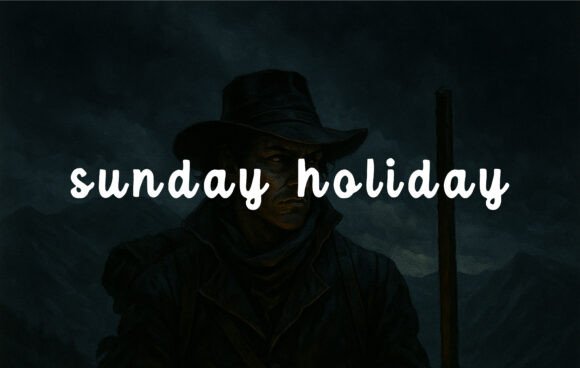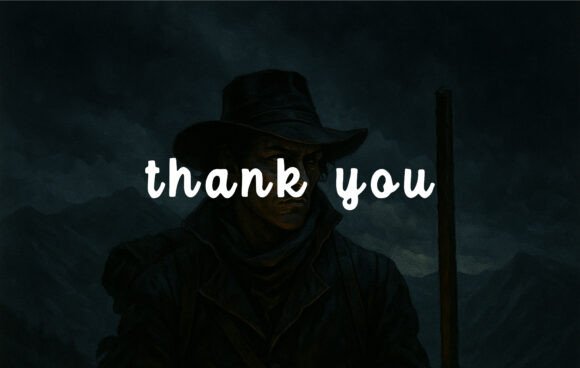
The Browning Font: A Comprehensive Guide to its Unique Characteristics and Design Applications
The Browning font has gained popularity among designers and crafters for its distinctive, handcrafted aesthetic. This typeface gets its unique character from its fluid, connected strokes that mimic natural handwriting. In this article, we’ll explore the key features of the Browning font, its design applications, and why it’s an excellent choice for projects that aim for warmth and authenticity.
Distinctive Characteristics of the Browning Font
The Browning typeface is defined by its fluid, connected strokes that give it an organic, handwritten feel. The letters often flow into one another, creating a sense of movement and personal touch. This characteristic makes the Browning font perfect for designs that require a friendly, approachable tone. Some of the key features that contribute to its distinctive character include:
- Fluid, connected strokes: The Browning font features letters that flow into one another, creating a sense of organic movement.
- Varied stroke weights: The typeface has varied stroke weights, with some lines appearing thicker and others thinner, contributing to its authentic, informal aesthetic.
- Slightly irregular baseline: The slightly irregular baseline and organic forms further enhance its handcrafted appeal, giving it a friendly, approachable feel.
Design Applications of the Browning Font
The Browning font is versatile and can be used in various design applications, including:
- Branding and packaging: The Browning font’s unique, handcrafted aesthetic makes it perfect for branding and packaging designs that require a personal touch.
- Stationery and invitations: The typeface’s friendly, approachable feel makes it suitable for stationery and invitation designs that aim for warmth and authenticity.
- Digital and print media: The Browning font can be used in digital and print media, including magazines, blogs, and social media graphics.
Why Choose the Browning Font?
The Browning font offers several benefits that make it an excellent choice for designers and crafters. Some of the reasons to choose the Browning font include:
- Unique aesthetic: The Browning font’s distinctive character sets it apart from other typefaces, making it perfect for designs that require a personal touch.
- Warmth and authenticity: The typeface’s handcrafted aesthetic gives it a warm, authentic feel that’s perfect for designs that aim for a friendly, approachable tone.
- Versatility: The Browning font is versatile and can be used in various design applications, making it a great addition to any designer’s toolkit.
Tips for Using the Browning Font
To get the most out of the Browning font, here are some tips to keep in mind:
- Use it for body text: The Browning font is perfect for body text, especially for designs that require a friendly, approachable tone.
- Pair it with contrasting fonts: Pair the Browning font with contrasting fonts to create visual interest and hierarchy in your designs.
- Experiment with colors and textures: The Browning font looks great with bold colors and textures, so don’t be afraid to experiment and find the perfect combination for your design.
The Browning font is a unique and versatile typeface that’s perfect for designers and crafters who want to add a personal touch to their designs. Its fluid, connected strokes, varied stroke weights, and slightly irregular baseline give it a distinctive character that’s both friendly and approachable. Whether you’re working on branding and packaging, stationery and invitations, or digital and print media, the Browning font is an excellent choice for projects that aim for warmth and authenticity.